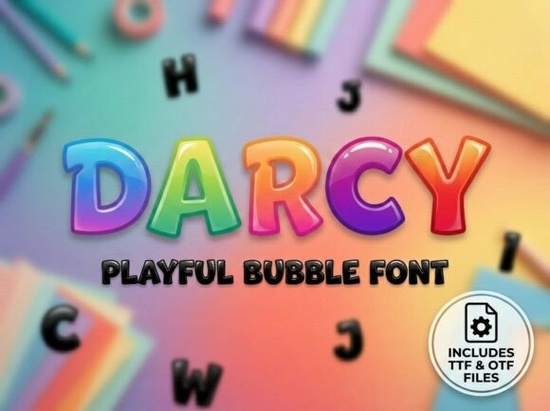
You know those moments when you see a logo on a playground fence or a bright sticker on a water bottle and you just feel happy? That is exactly what this typeface aims to achieve. Darcy Font brings an explosion of fun to your canvas with its high-energy bubble style. It captures a joyful-and-juvenile soul through chunky, ultra-rounded letterforms that feature rhythmic glossy reflections and an inflated structural weight. This bridges the gap between retro cartoon nostalgia and modern candy-coated branding perfectly.
What makes this font unique?
The design goes beyond simple thick strokes. Every letter has a specific bounce to it, making the text feel physically present rather than flat on the screen. The friendly personality comes from the approachable, bouncy flow of the kerning. When you use this on a project, the reader immediately understands the mood is lighthearted and safe. This is why it is the premier choice for independent toy store identities, boutique children’s book titles, and creative preschool logos.
If you are looking to capture that cheerful-and-chubby vibe for social media headers, this tool delivers high impact. The glossy reflections mentioned in the description give the letters a tactile, almost plastic appearance. This adds a layer of depth that standard sans-serif fonts lack. It helps your brand communicate playfulness without needing complex graphics to support the message.
Which projects suit this style best?
When you decide to use this display type, think about where visibility meets whimsy. It works exceptionally well for merchandise that targets younger demographics or nostalgic adults. Imagine T-shirts for family reunions, mugs for gift shops, or posters for community events. Because the shapes are so round, they read clearly even at smaller sizes, which is crucial for packaging labels or app icons.
However, balance is key. Due to its strong character, mixing it with intricate serif details often clashes. A better strategy involves pairing it with cleaner body text or simple geometric accents. You can find inspiration for complementary styles by exploring other Lazzleto font display fonts for broader creative context. Just remember that the goal is to keep the composition readable while maintaining that energetic atmosphere.
How does it compare to other options?
Not every bubbly script works for the same purpose. While Ribbon Chiffon Font Display Fonts might offer a softer, more flowing look suitable for weddings or elegant parties, this specific selection prioritizes volume and boldness over grace. It sits comfortably alongside heavier market favorites like Varsity Graduate Font Display Fonts if you are leaning towards a sports or team aesthetic.
Sometimes, you need to explore darker themes or contrast-heavy visuals. In those instances, checking out resources like Zombie Font Display Fonts provides a stark reminder of the different ends of the spectrum in decorative typography. Yet, when the brief requires warmth and accessibility, sticking to rounded forms ensures the audience connects instantly with the intended emotion.
Your next steps for using this typeface
- Create a mood board: Collect images that match the joyful vibe to visualize the final outcome.
- Test readability: Type a sample sentence at the smallest size you plan to use to check clarity.
- Pairing check: Choose a simple sans-serif body font that won't compete with the bubbles.